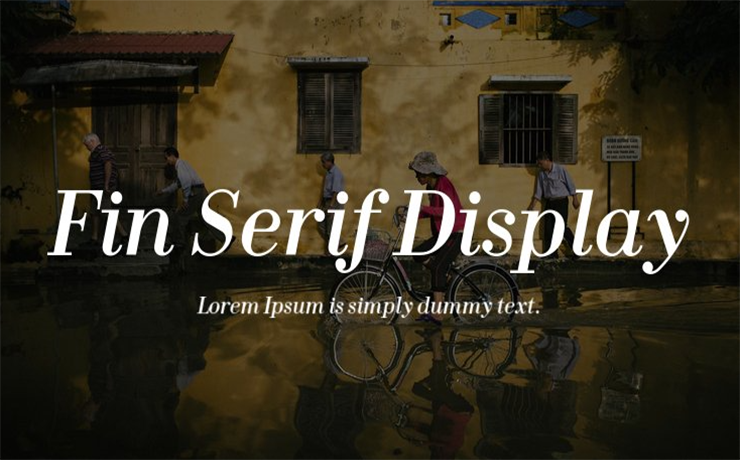
Here classic high-contrast style with a modern touch intersect, you’ll find Fin Serif Display Font – an expressive and bulky typeface made for beautiful branding.
J Blake Harris is known as the primary designer of this typeface. You can use it for every type and field of display and printing tasks.
The structure of this typeface is based on a completely modern and classic look. This type of fast is really easy for users to read when used with the fonts of the seventies.
This typeface has an italic alphabet, which makes this typeface a great web font and a great option that can be applied in web development.
You can notice that this high contrast typeface is created with well-balanced contrast between thick stems and thin crossbars.
Due to its cool texture, you may easily use this outstanding font for the ambitious heading, documents, ebook covers, brand designs, assignments, cloth printing, official cards, precise emblems, and more.
Fin Serif Display Font consists of only a single unique style. So, you can really make great and refined designs without any fear.